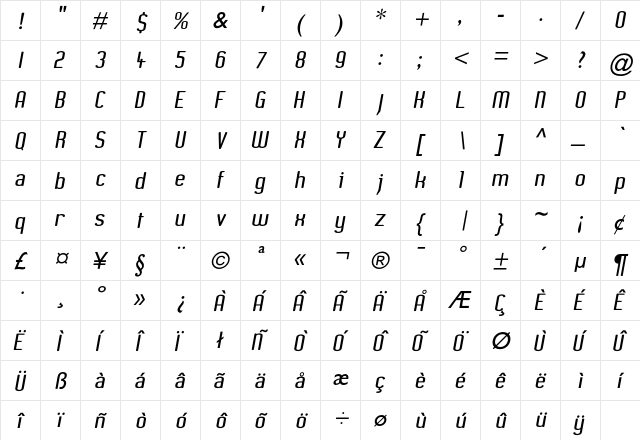
XenomorphSans Italic
Design Context for XenomorphSans Typeface
XenomorphSans takes a measured approach to typography — its balanced proportions and neutral character make it a reliable workhorse for both digital and print work. The slanted form adds forward momentum and visual energy.
Pro Tip: Try XenomorphSans for annotation and caption copy alongside an upright companion — the contrast in angle creates a dynamic but ordered typographic system.